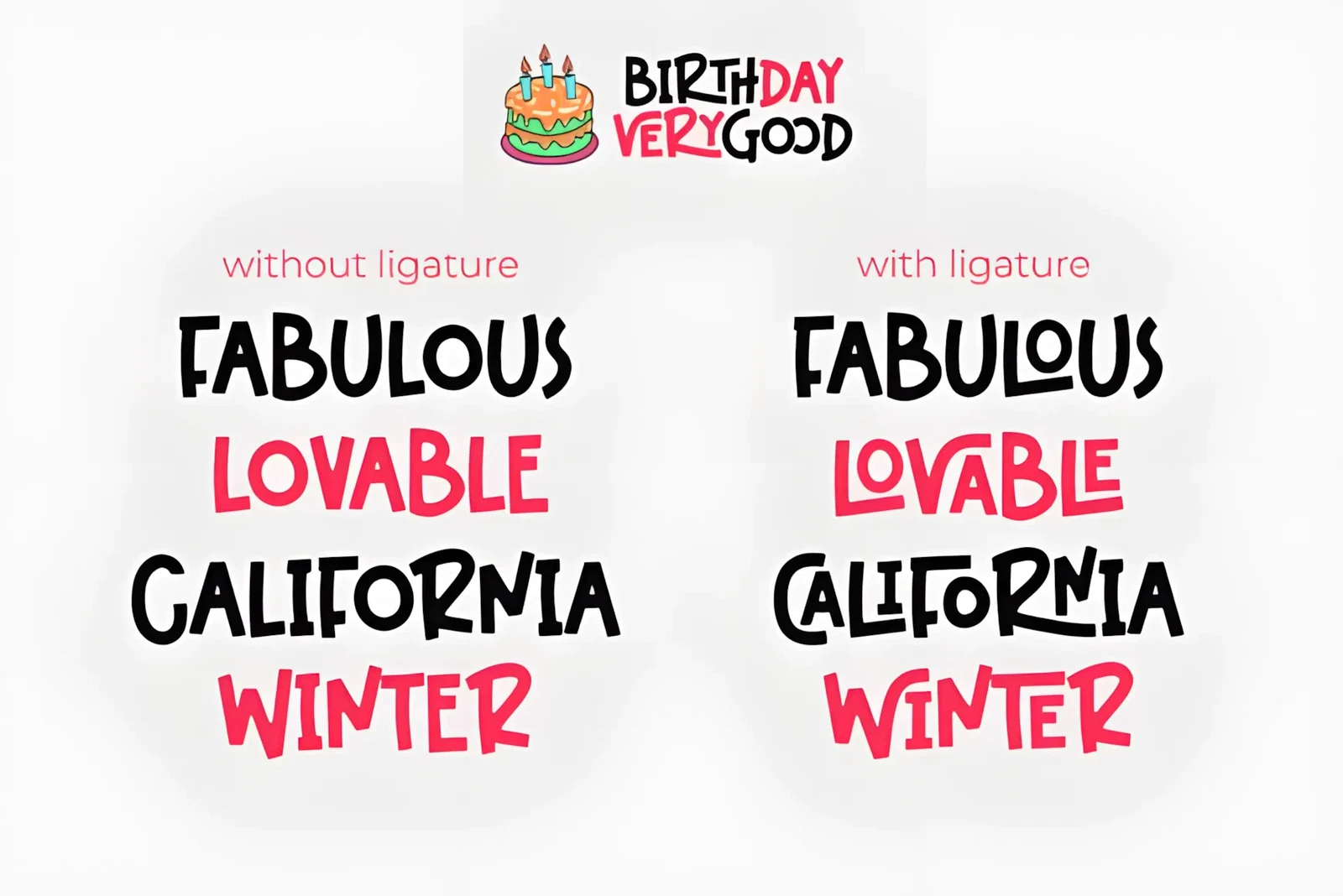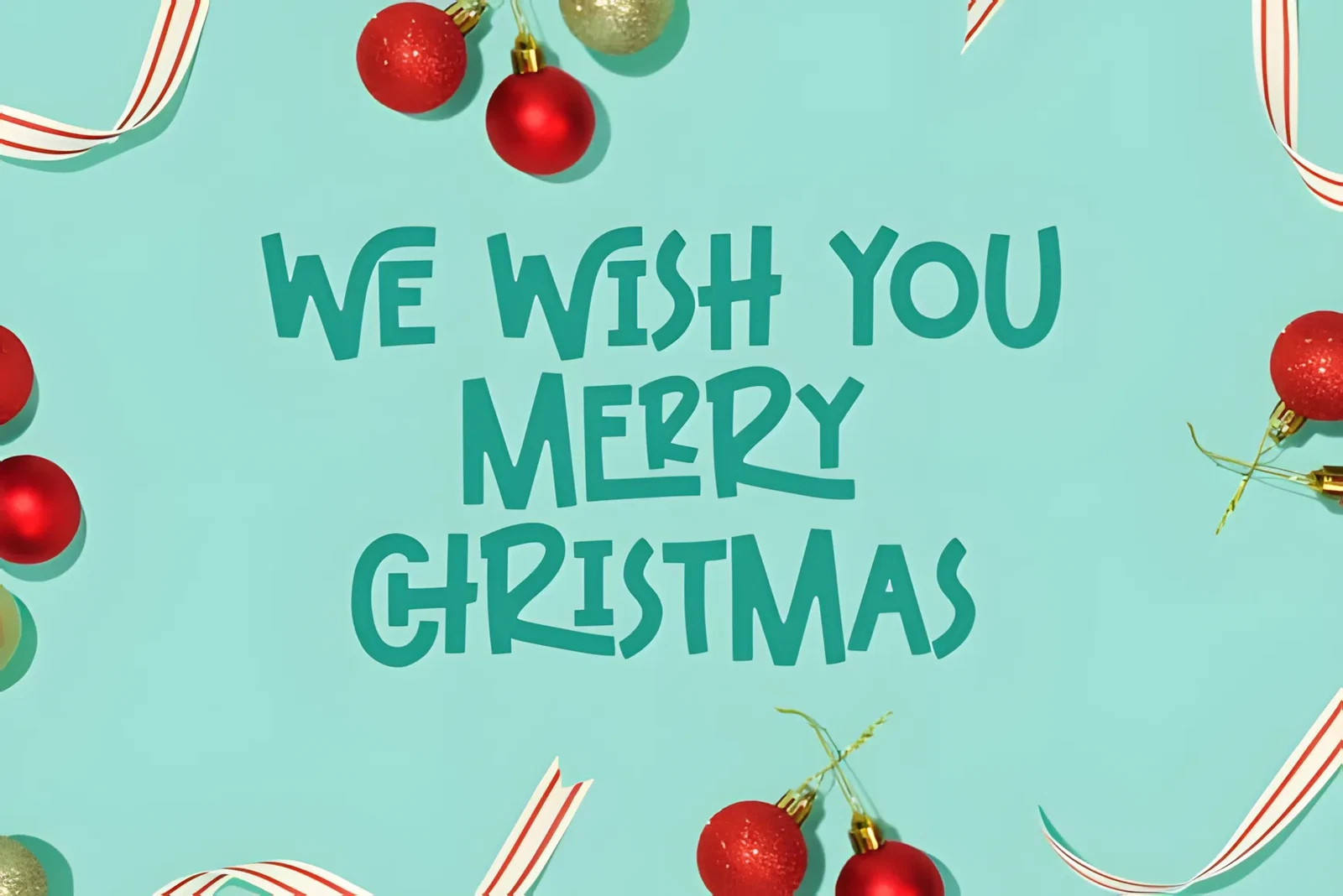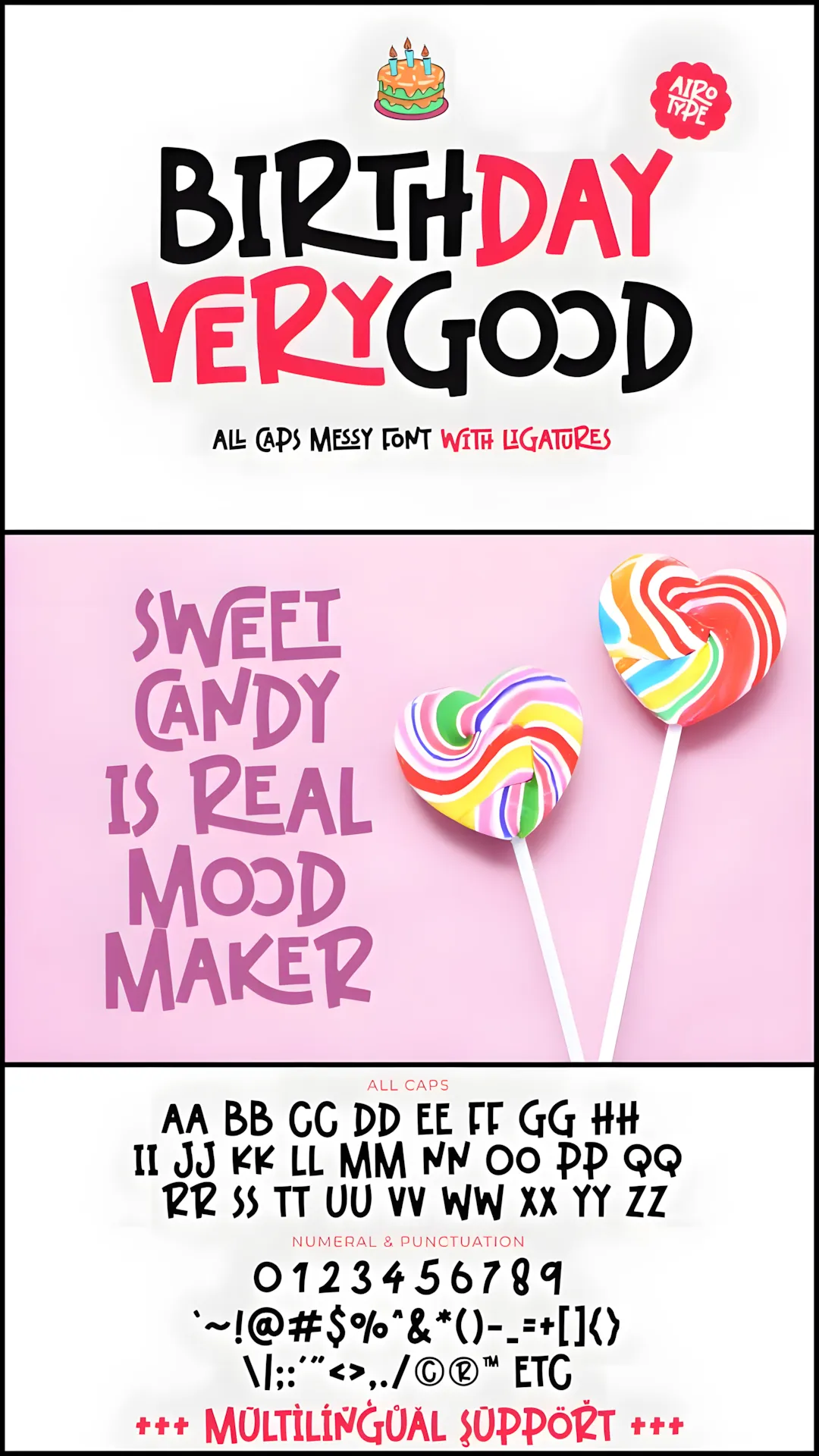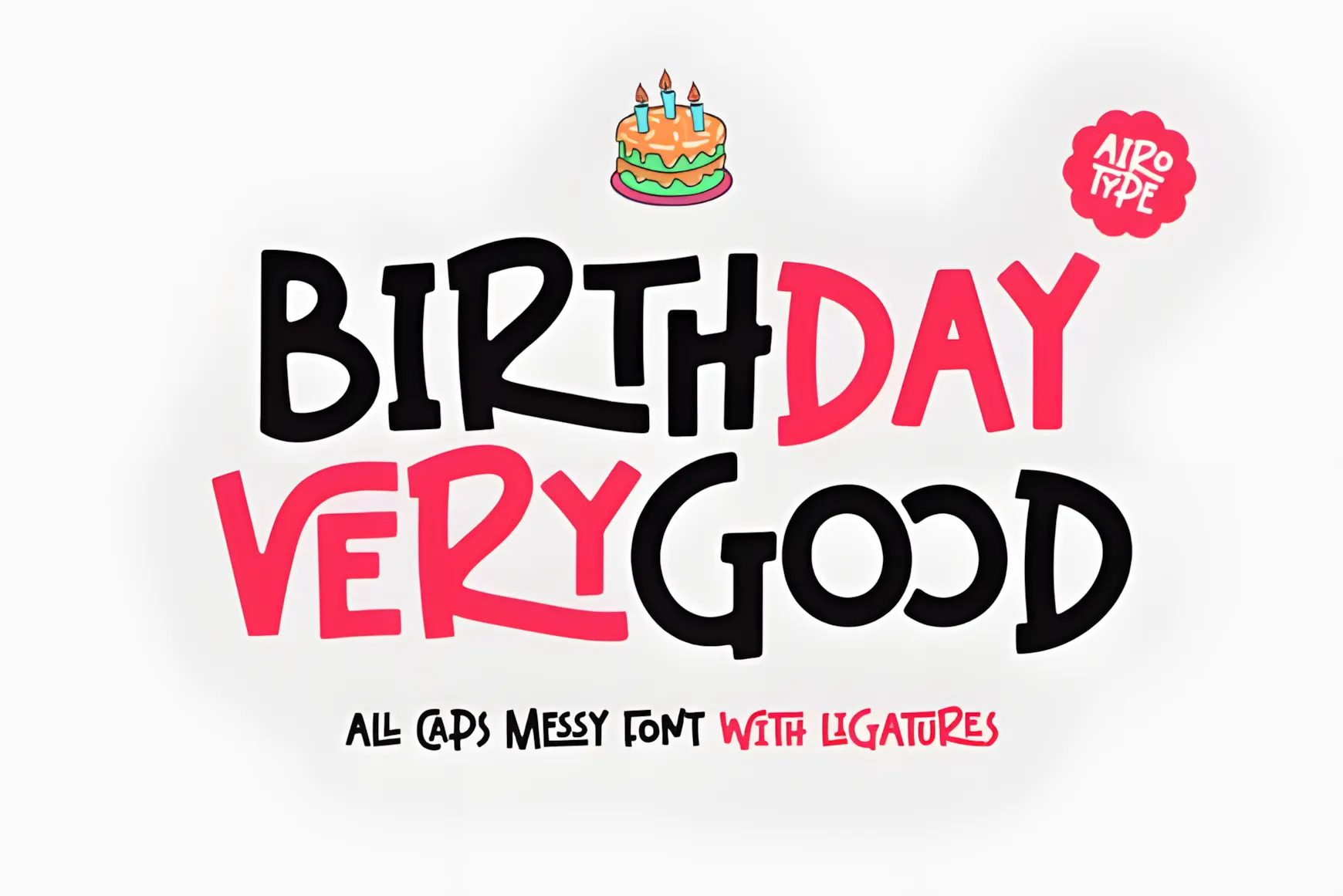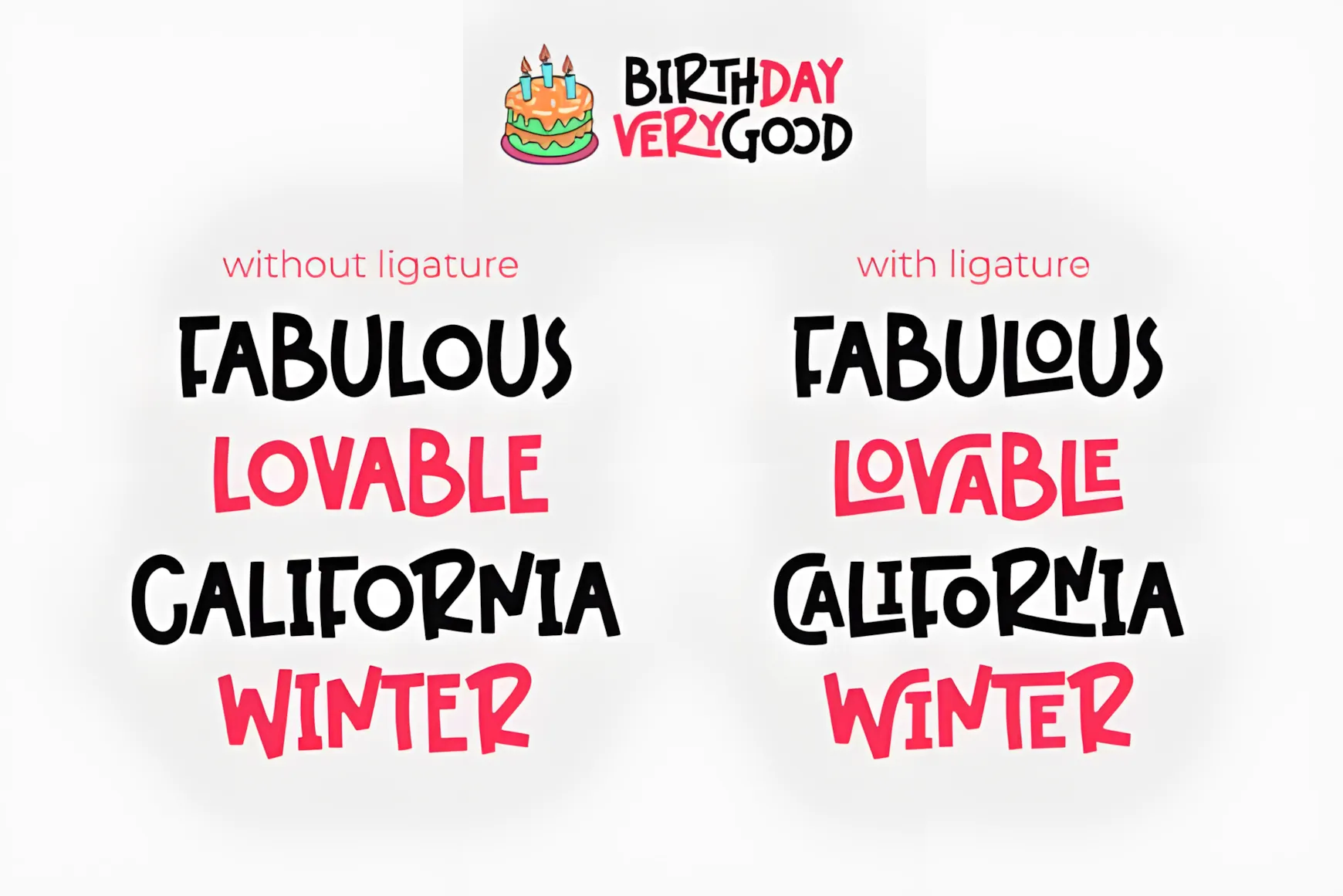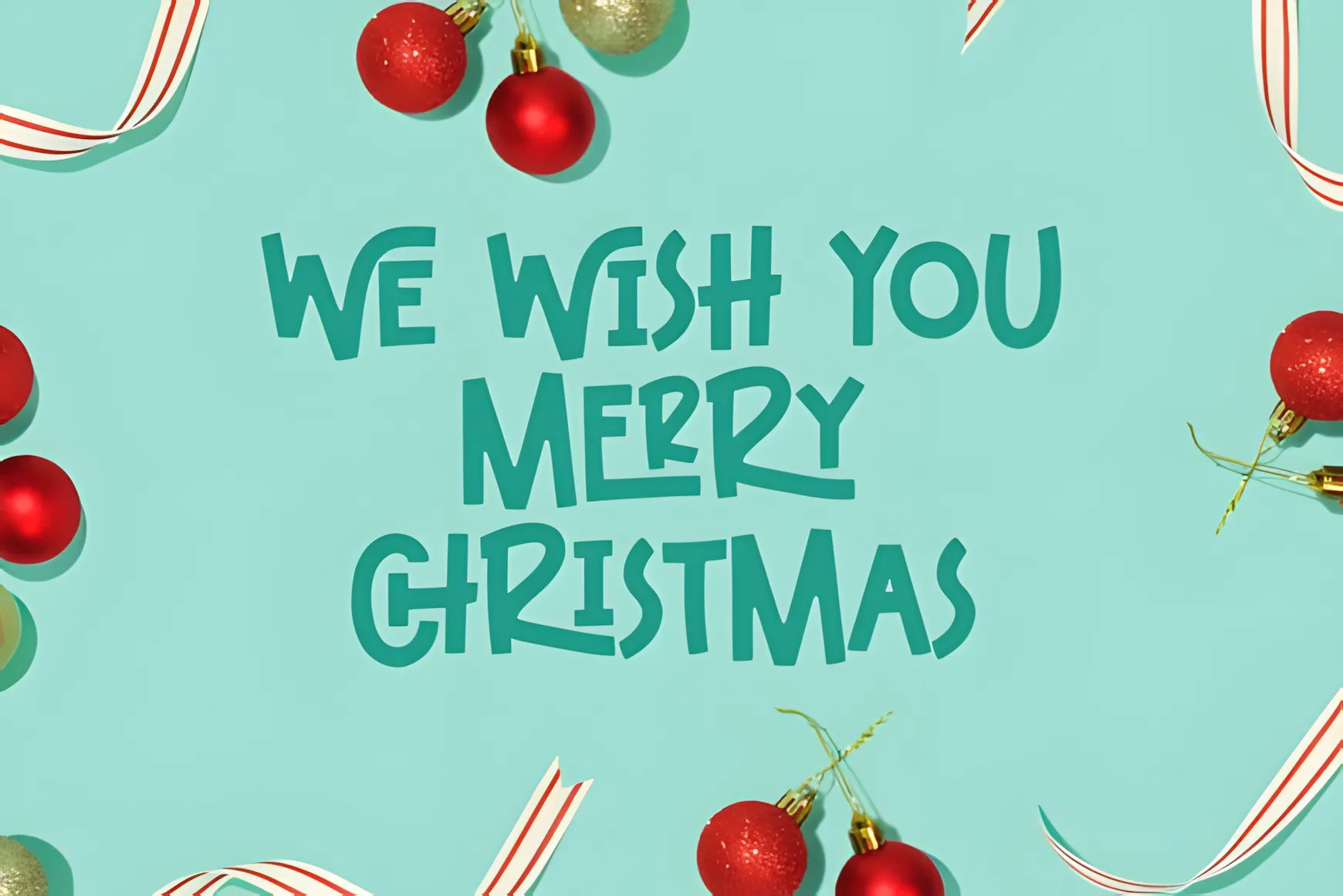
Typography sets the tone in any visual design, and when a project calls for personality and celebration, the right font can bring joy and style instantly. The Birthday VeryGood Font is a decorative typeface crafted for fun, festive, and creative projects that require a playful and charming look.
Designed with lively letterforms and decorative flair, Birthday VeryGood is ideal for party invites, event branding, social media graphics, greeting cards, posters, and any design where an upbeat, celebratory vibe is needed.
What Is Birthday VeryGood Font?
Birthday VeryGood Font is a decorative display typeface that captures the energy of celebrations and festive occasions. Its letterforms feel cheerful and expressive, with whimsical shapes that evoke fun and excitement. Rather than blending into the background, this font demands attention and sets a joyful tone from the first glance.
Unlike neutral sans-serifs or classic serif fonts, Birthday VeryGood is built for character. It is most effective in short text elements like titles, headers, and invitations — places where the typography is meant to shine and carry the mood of the design.
Visual Style and Design Characteristics
What sets Birthday VeryGood Font apart is its festive personality. The characters often feature rounded shapes, playful curves, and decorative accents that make them feel lively and hand-crafted. This gives each letter expressive movement and a sense of celebration that perfectly matches themes like birthdays, anniversaries, family gatherings, and festive events.
The font works beautifully in bright and bold color palettes, but it also adapts well to more muted designs when the context calls for a stylish yet friendly look.
When used in headlines or titles, Birthday VeryGood brings an instant sense of joy and visual interest that is difficult to achieve with more traditional typefaces.
Best Uses for Birthday VeryGood Font
Party Invitations & Celebrations
When designing invitations for birthdays, anniversaries, baby showers, or holiday parties, font choice plays a key role in setting the tone. Birthday VeryGood Font makes designs feel more personal and fun, helping invitees immediately understand the mood of the event.
It pairs perfectly with festive graphics like confetti, balloons, banners, and ribbons, enhancing the celebratory message.
Social Media & Event Promotion
In digital spaces like Instagram, Facebook, Pinterest, and event landing pages, typography must grab attention fast. Birthday VeryGood Font’s lively shapes and decorative style make it ideal for:
- Social media headlines
- Event flyers
- Digital invitations
- Promo banners
Its playful tone helps visual content stand out on feeds, enticing viewers to engage.
Greeting Cards & Personalized Gifts
Birthday VeryGood Font is also a great choice for greeting cards and gift designs. Whether it’s a card for a loved one or custom messaging on packaging, the font’s cheerful personality adds warmth and character to heartfelt messages.
It works well paired with handwritten elements, illustrations, and colorful design accents.
Posters, Flyers & Print Materials
For physical promotional materials like posters, flyers, stickers, and event signage, Birthday VeryGood Font brings a festive presence. Its bold, decorative style ensures that key messages are readable from a distance while maintaining an upbeat visual tone.
This makes it an excellent choice for event branding and print campaigns that want to communicate joy and energy.
Advantages of Using Birthday VeryGood Font
- Playful and festive aesthetic that matches celebratory projects
- Decorative, expressive letterforms that boost visual interest
- Perfect for titles, logos, posters, and invitations
- Works across digital and print formats
- Great for social media graphics and event promotion
Birthday VeryGood Font strikes a balance between joyful personality and design versatility — a combination that makes it a go-to typeface for creative projects where mood matters.
Birthday VeryGood Font is a decorative typeface that brings a joyful, festive spirit to any design. Its playful letterforms and expressive style make it ideal for invitations, event branding, social media graphics, greeting cards, posters, and promotional materials.
With its cheerful aesthetic and versatile use cases, Birthday VeryGood is an excellent choice for designers and creators looking to add personality and celebration to their visual projects.